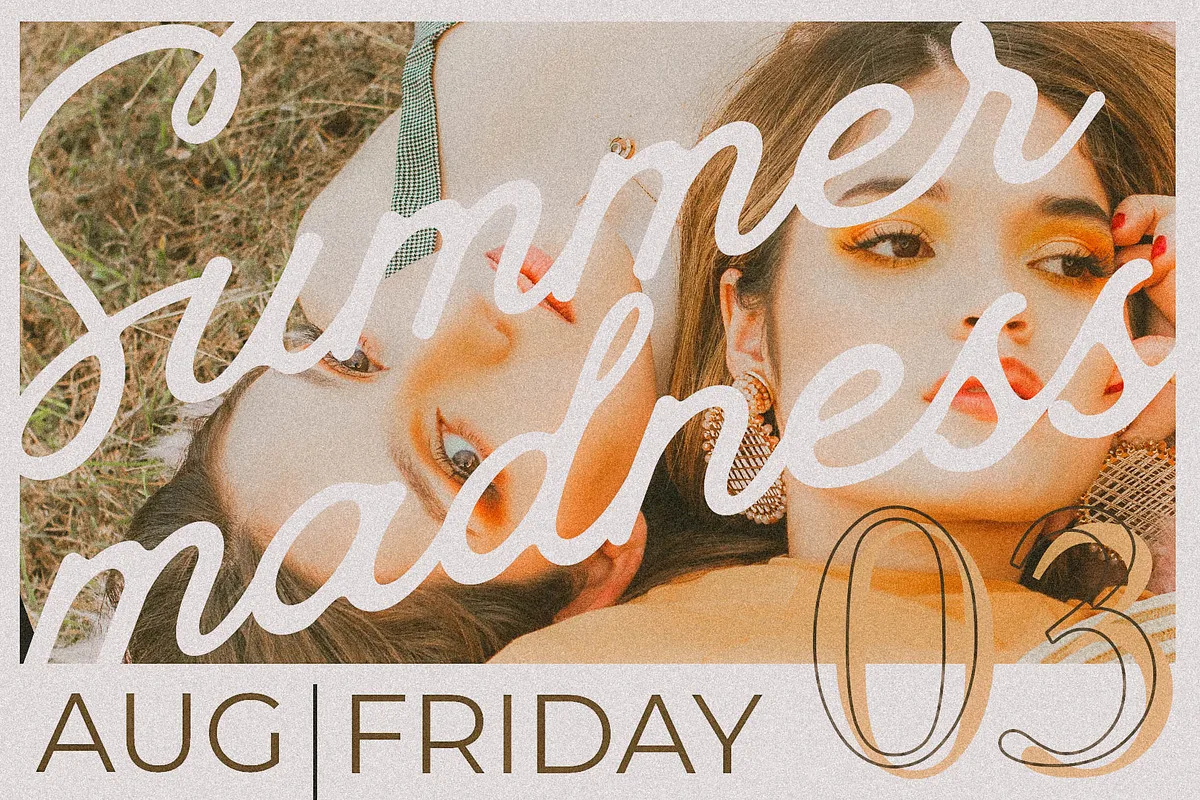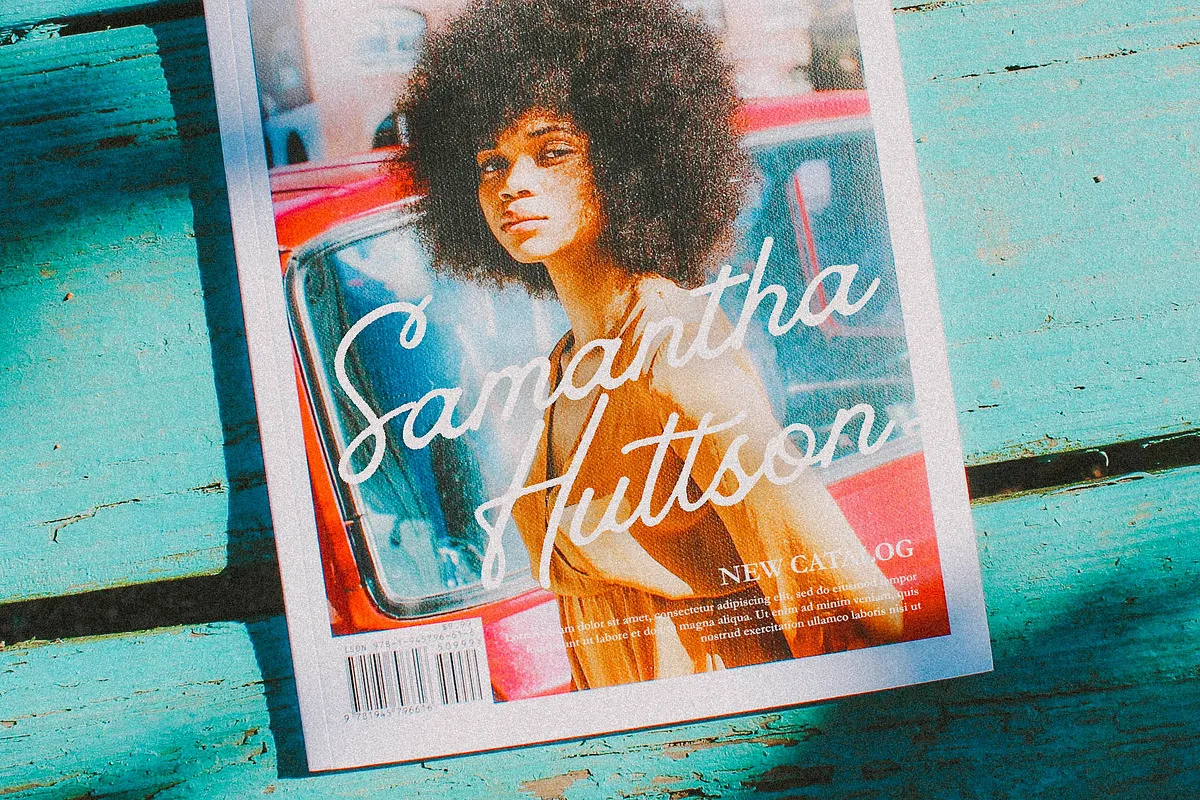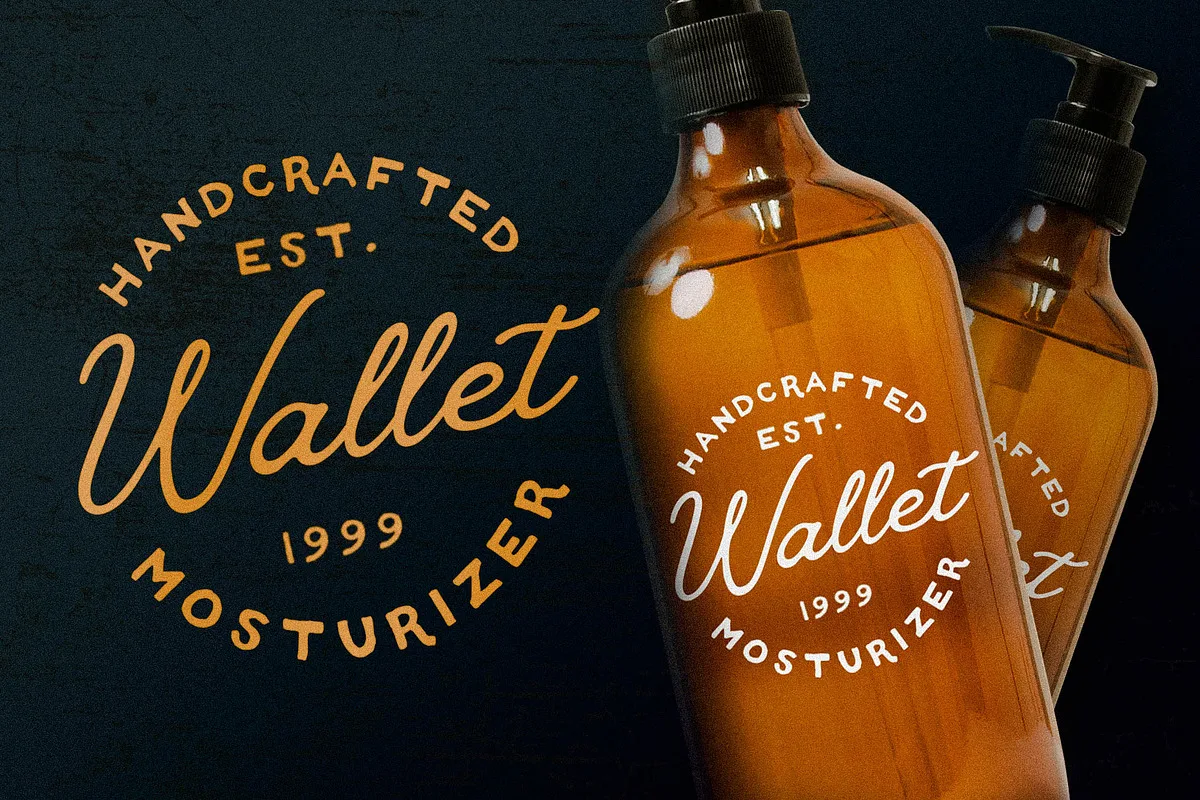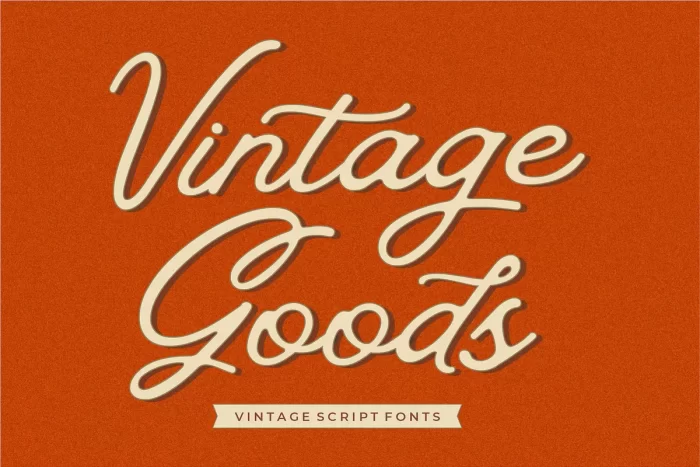
Vintage Goods Fonts was inspired by the 1980s, a period that rediscovered and reconsidered calligraphy as a type face, as well as photography and human emotions. The goal was to take the simple but effective designs from this era.
This fonts are great for product logo,wedding card logo, clothing brand logo, Vintage design and much more.
- Ton of glyphs
- Ligatures & Alternates